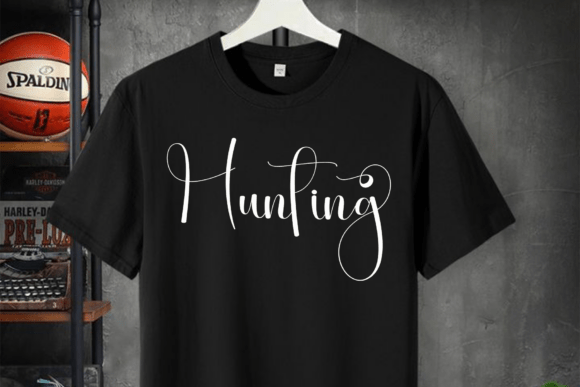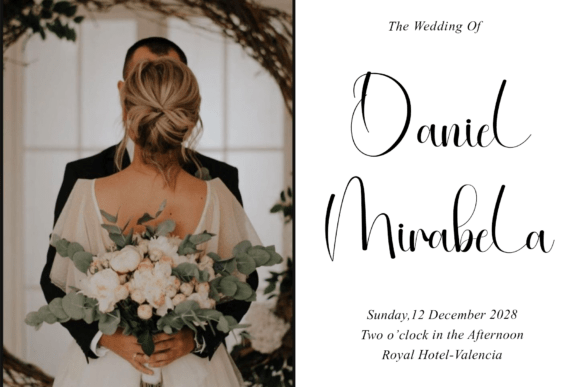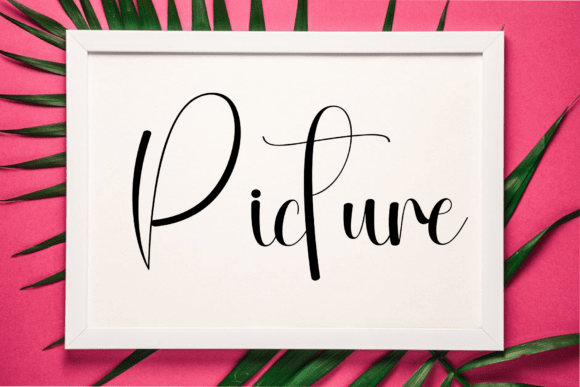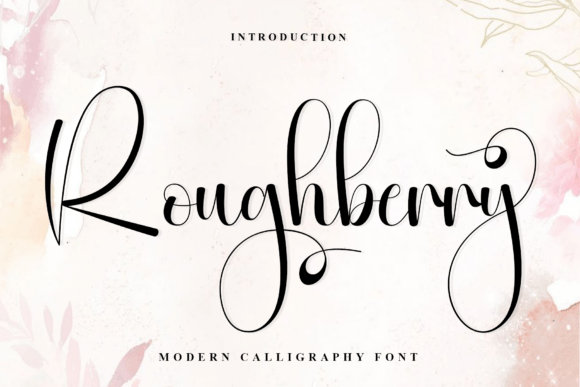
Introduction to Roughberry Font
Roughberry is an elegant and fluid handwritten script font that captures the essence of a modern, sophisticated typeface.
This font is a perfect choice for luxury wedding stationery, intimate event branding, high-end editorial signatures, and sophisticated lifestyle photography overlays .